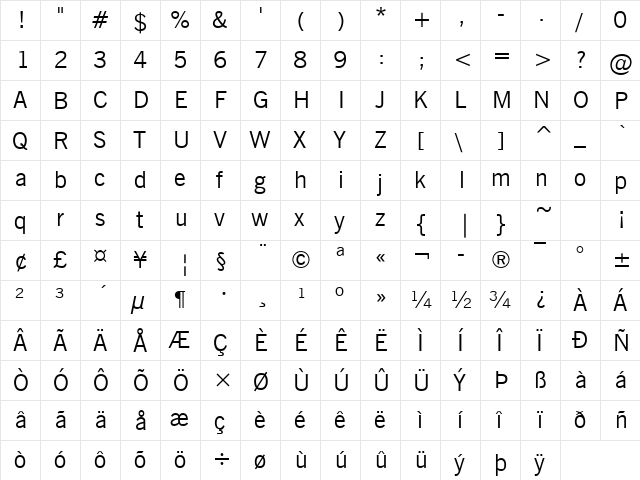
Reporter Regular Font Preview
Reporter Regular
Design Context for Reporter Typeface
Reporter takes a measured approach to typography — its balanced proportions and neutral character make it a reliable workhorse for both digital and print work.
Pro Tip: Use Reporter in both headline and body roles to test its range before committing to a single application.